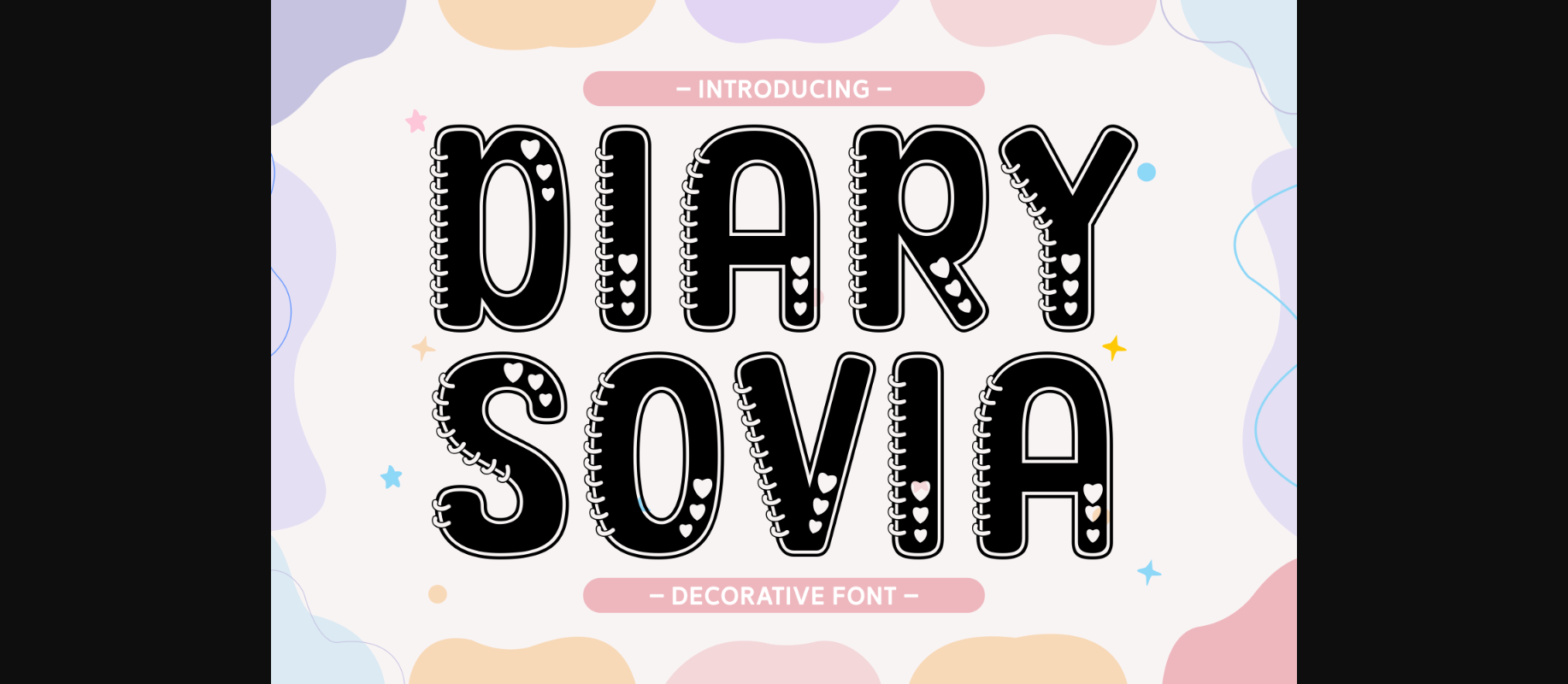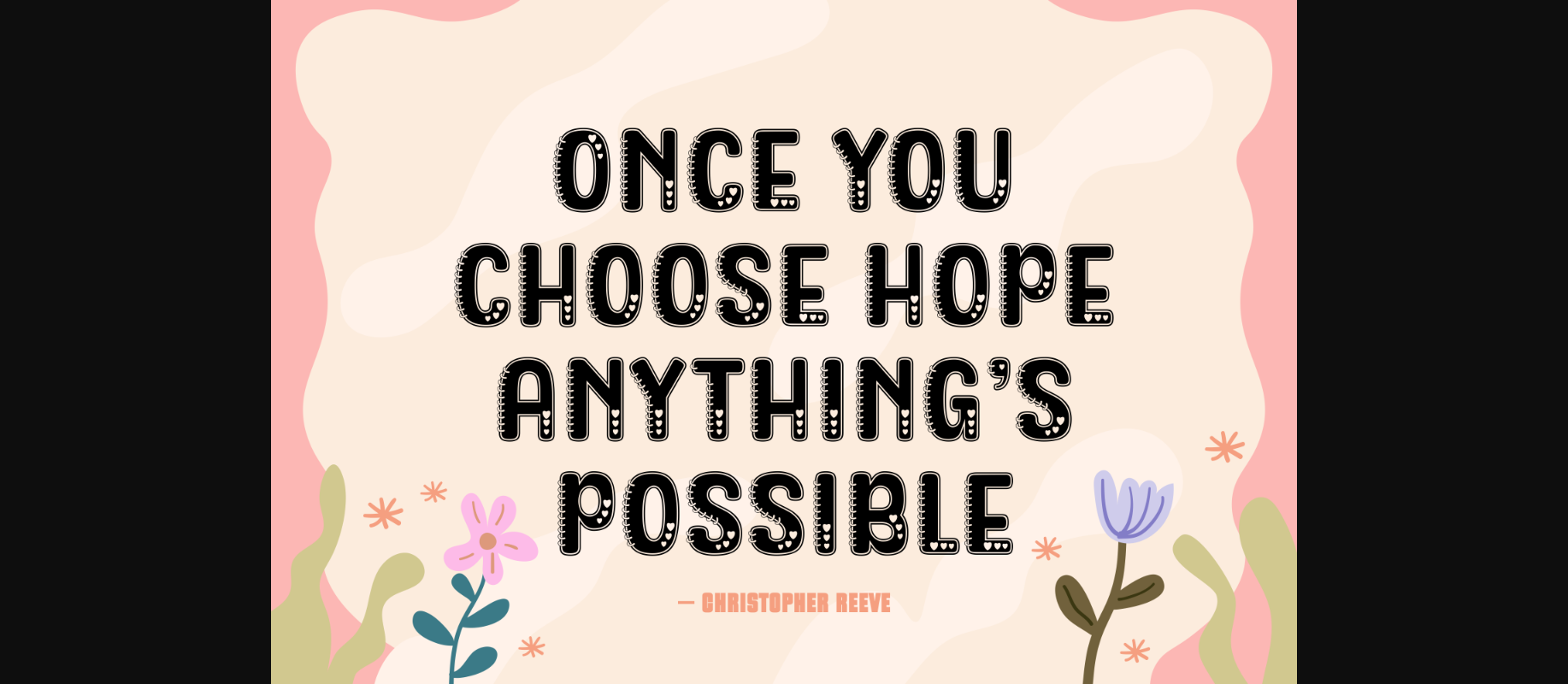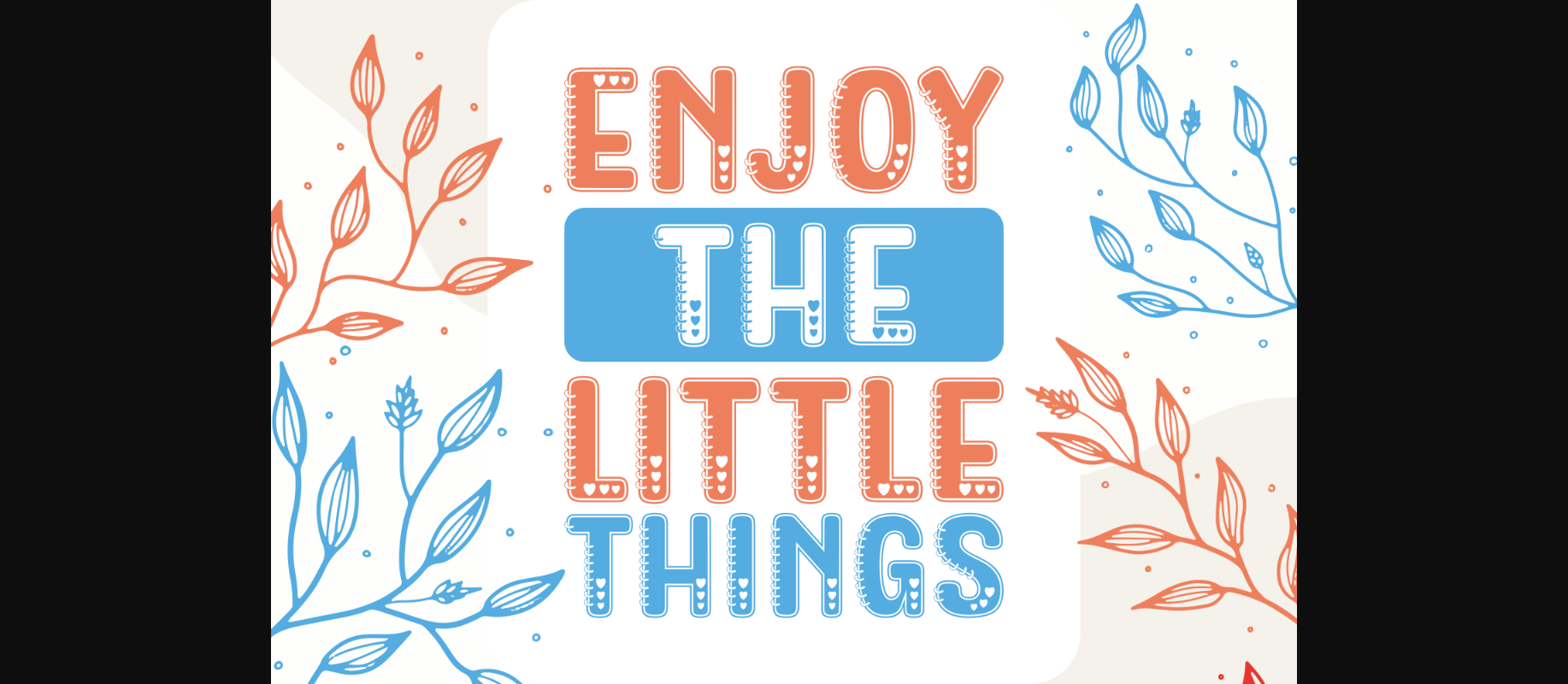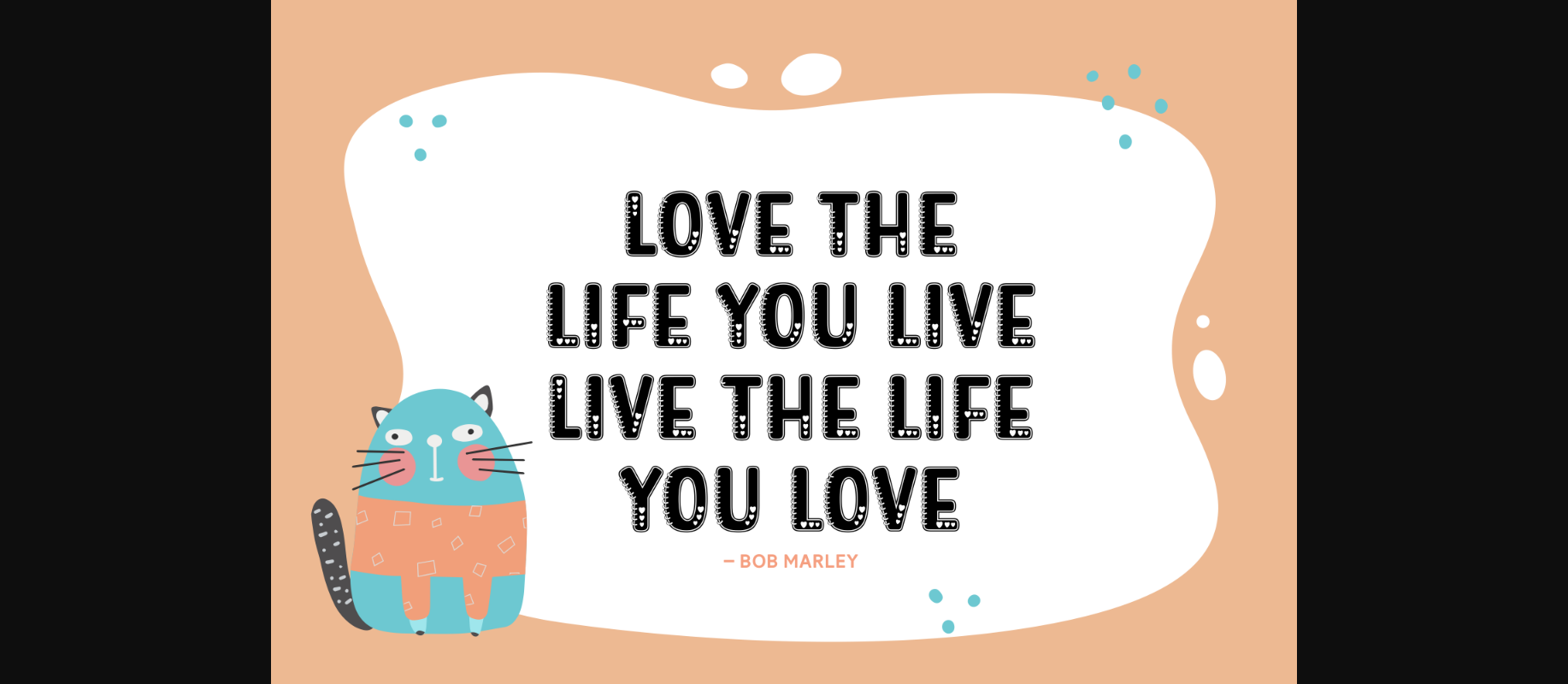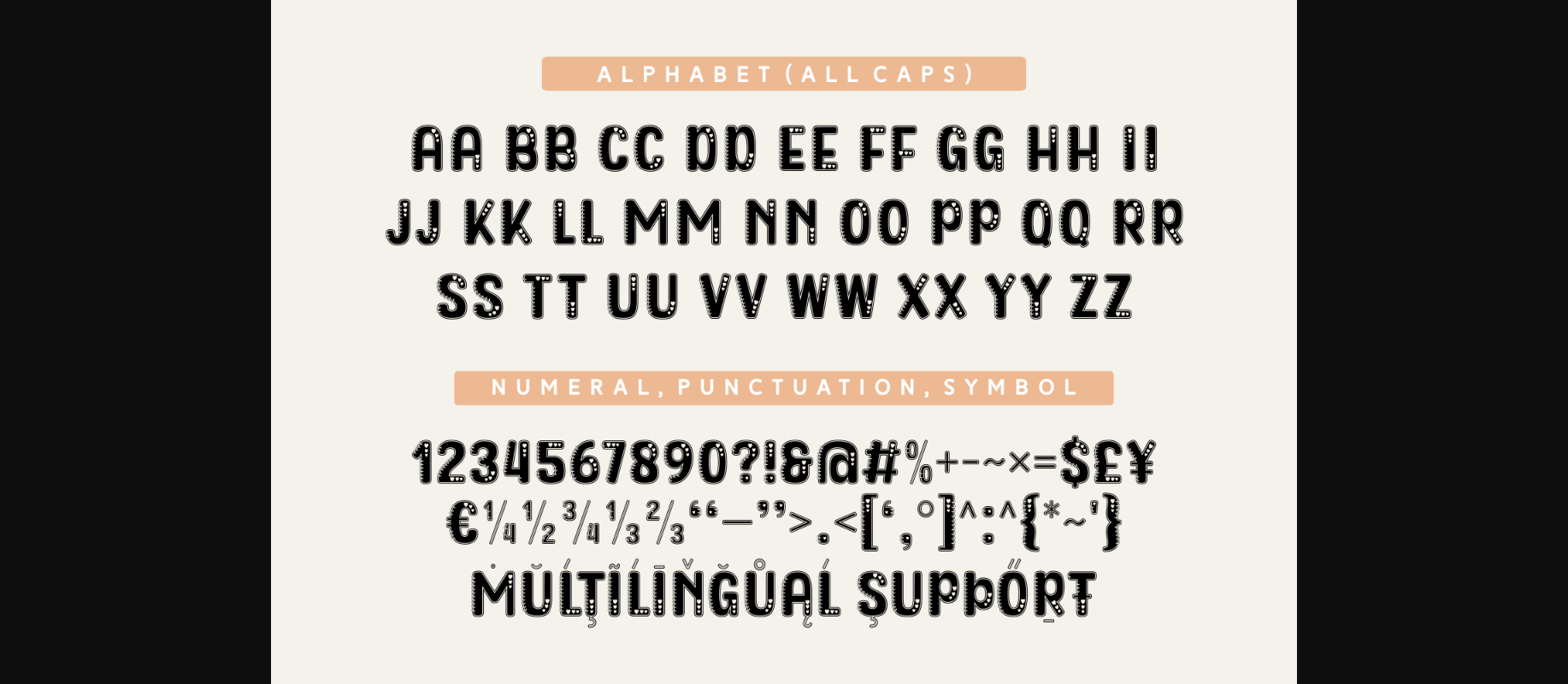
Diary Sovia Font
About Diary Sovia Font
This eye-catching decorative font is perfect for any design project! With its intricate lines and bold characters, Diary Sovia font adds a touch of elegance and style to any project.